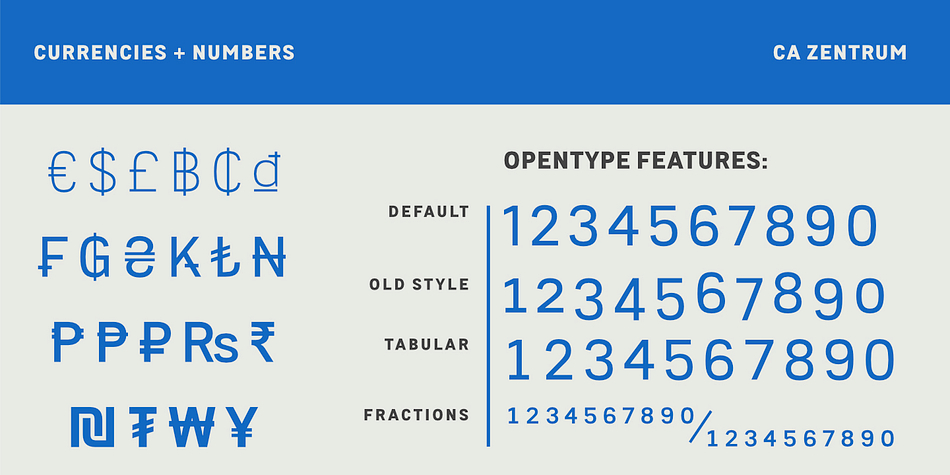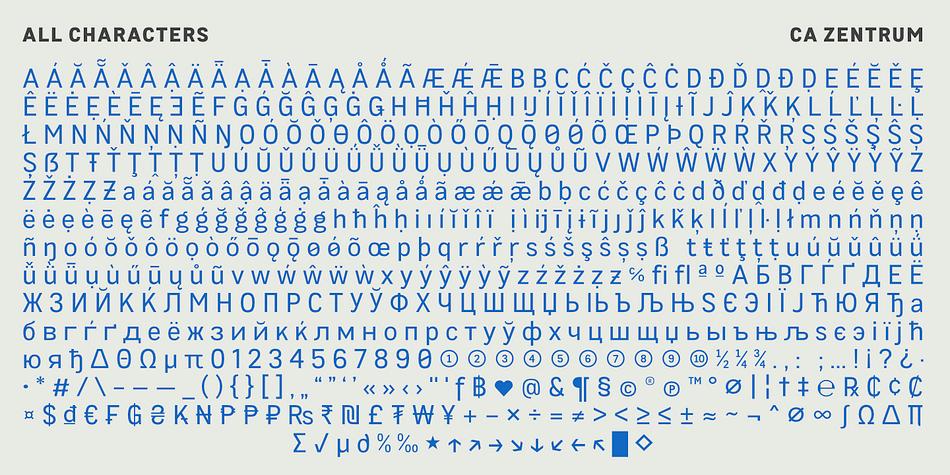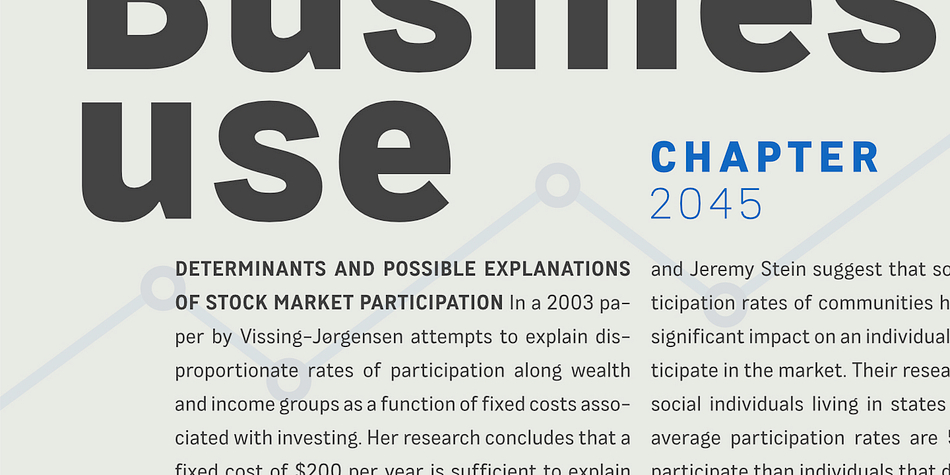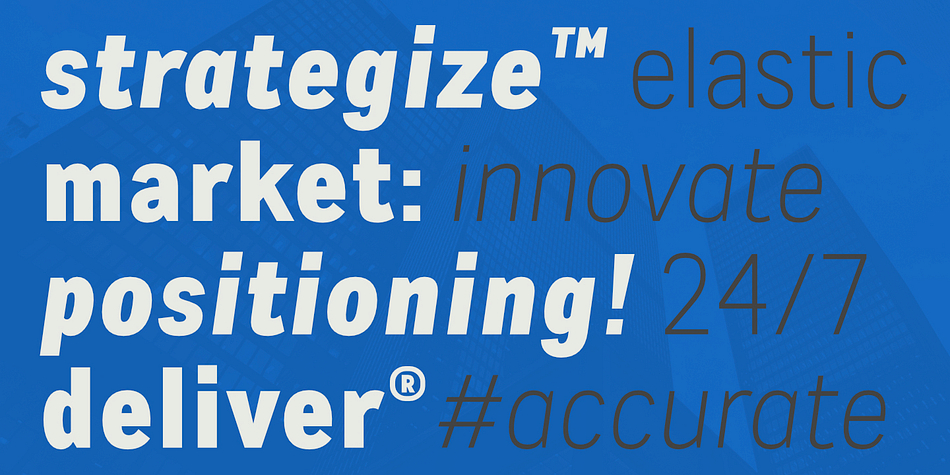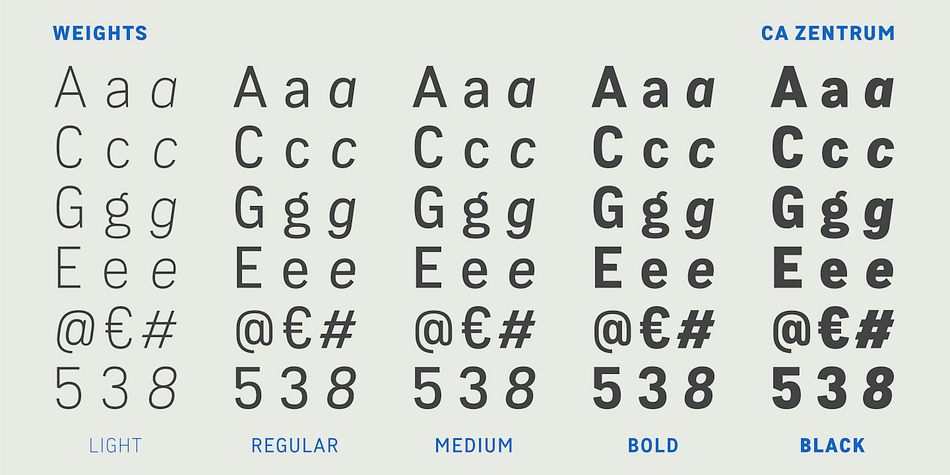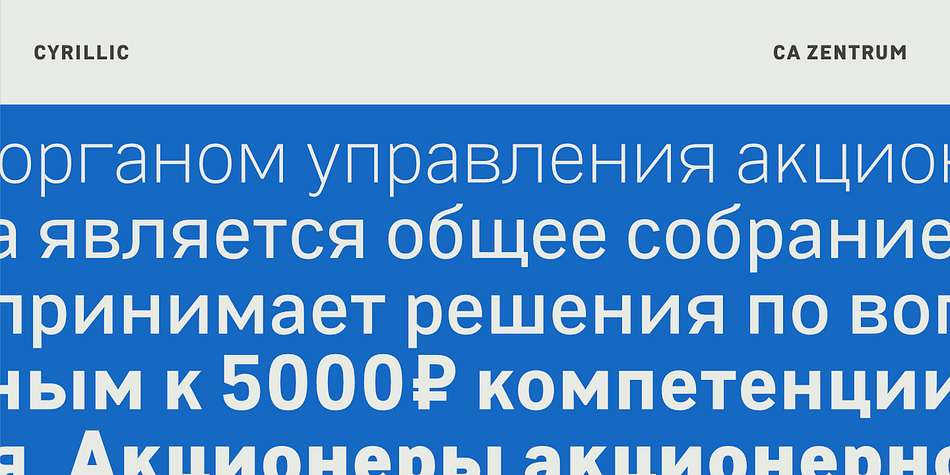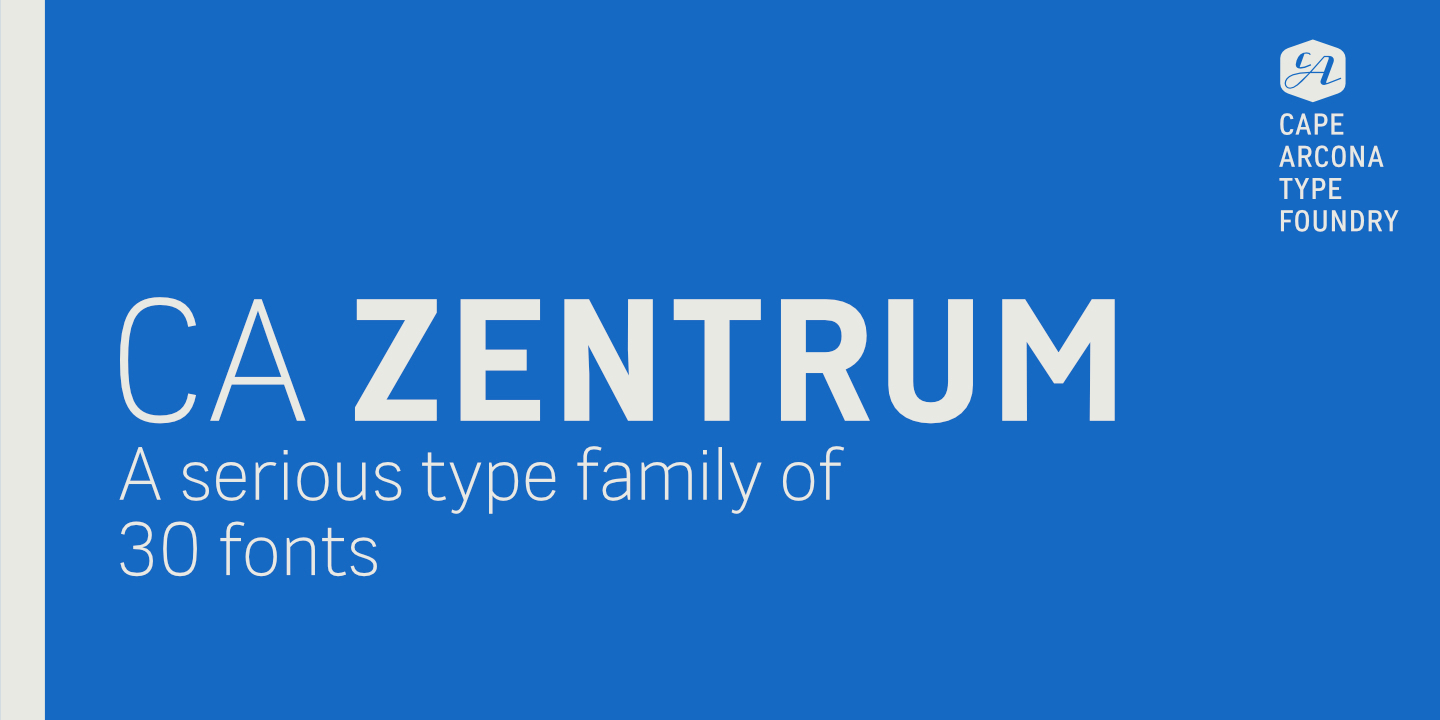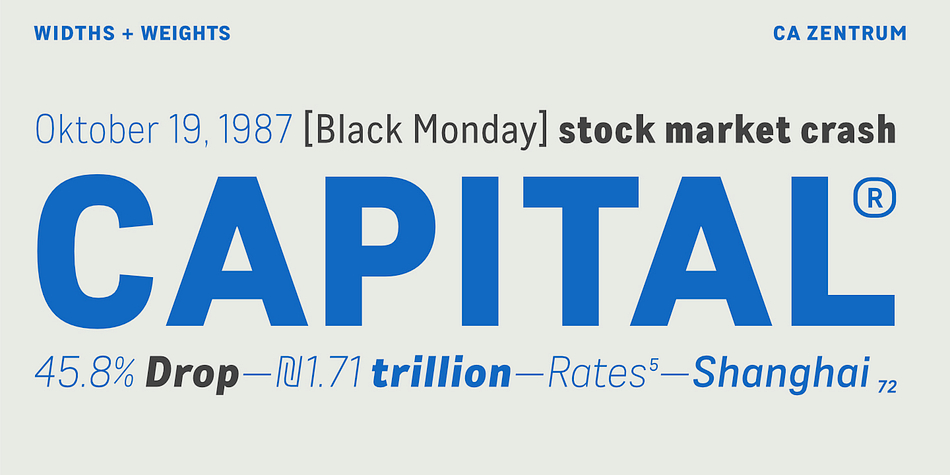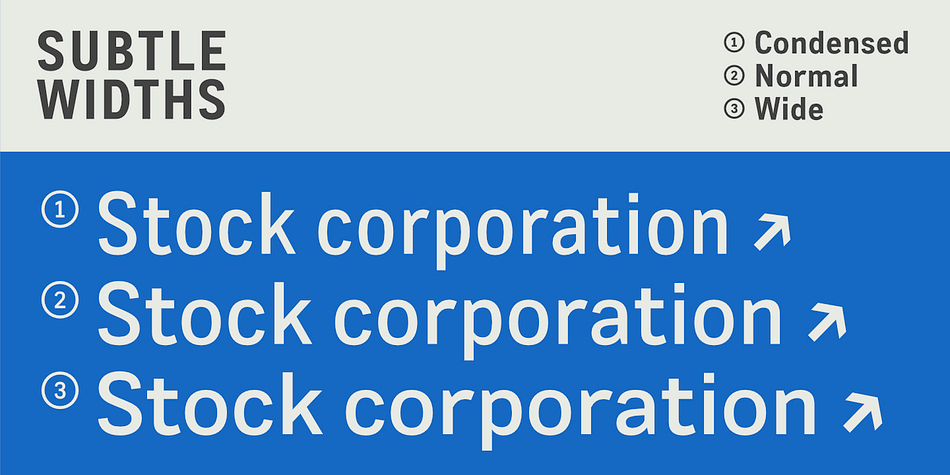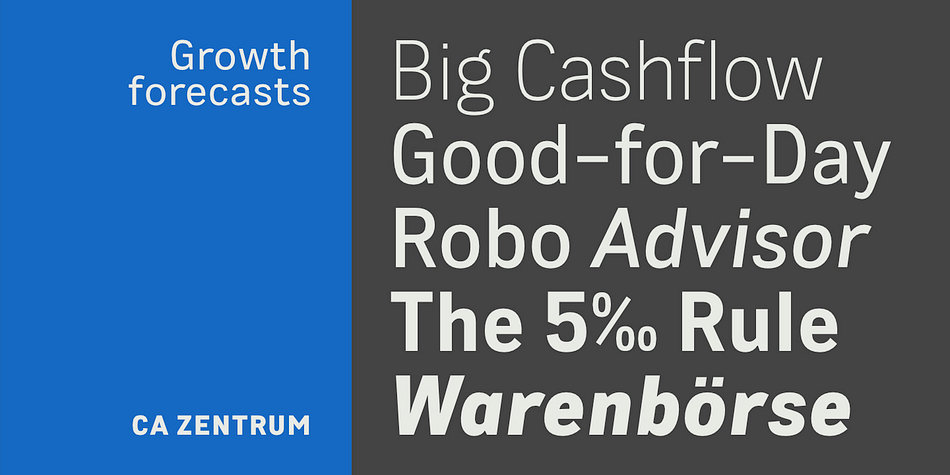
Designed by Thomas Schostok, CA Zentrum is a sans serif font family. This typeface has thirty styles and was published by Cape Arcona Type Foundry.
CA Zentrum is a compelling mix of conciseness and pragmatism. Bold, distinct and original, contemporary and versatile. At a closer look, it reveals rounder reading-friendly forms. The choice of weights aims at an easy, straight forward use. A set of five well-balanced weights and three widths ranging from light to black and from condensed to wide. This variety ought to be enough to cover most needs without throwing the typographer into questions. The family’s glyph set supports over 100 Latin languages.
With its blend of timelessness and modernity, the type-family is uniquely suited for modern corporate visual languages, websites, corporate design, editorial design and advertising. Careful spacing and a great choice of OpenType features make it especially well suited for text copy and/or editorial design.